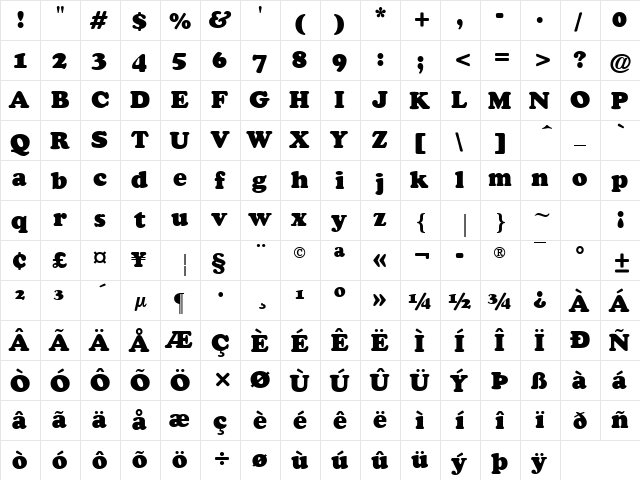
Ozzie Black Regular
Design Context for Ozzie Black Typeface
Ozzie Black offers clean, dependable letterforms without strong stylistic allegiance, making it a practical choice for designers who need flexibility.